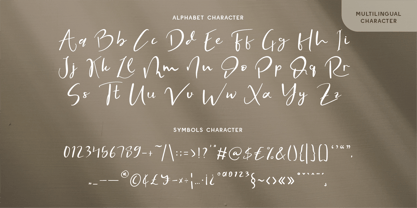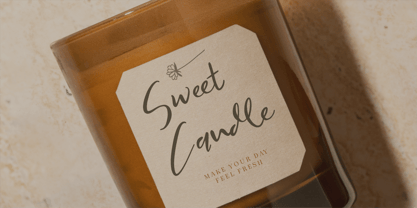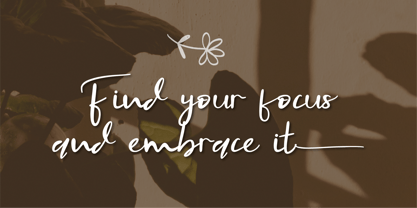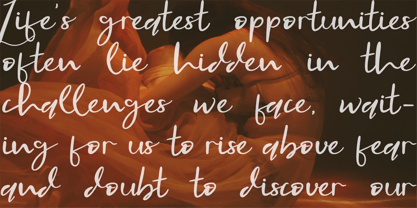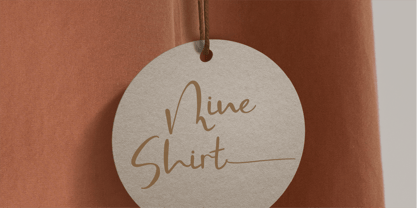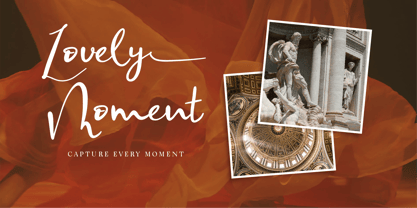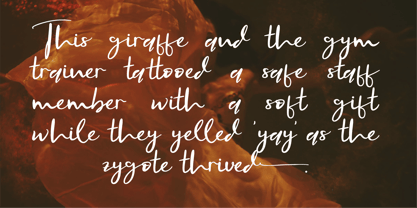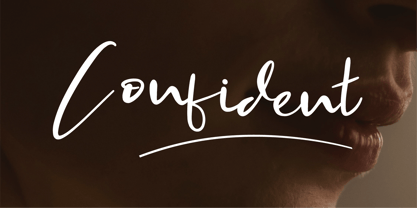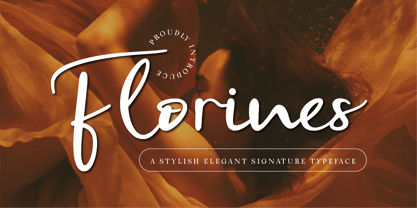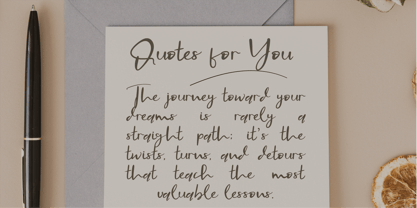
CF Florines
by Indotype
The CF Florines Font Family was designed by Gilang Mei Nugraha, Frederik Aristaputra and published by Indotype. CF Florines contains 1 styles. More about this family
Florines is an elegant handwritten font with a whimsical, signature-inspired charm. Its flowing, natural strokes blend sophistication with a playful edge, evoking a sense of authenticity and personal touch. Ideal for branding, logos, wedding stationery, or stylish editorial designs, Florines captures the balance between refined elegance and creative spontaneity. Whether for formal or lighthearted projects, this font brings a sense of individuality and grace to your designs.
Designers: Gilang Mei Nugraha, Frederik Aristaputra
Foundry: Indotype